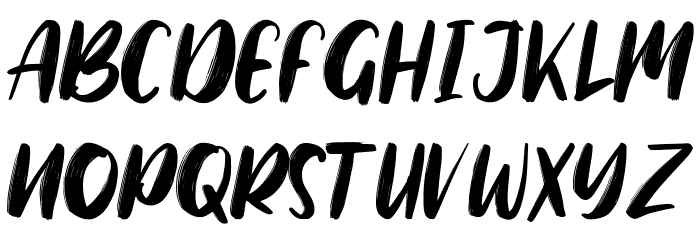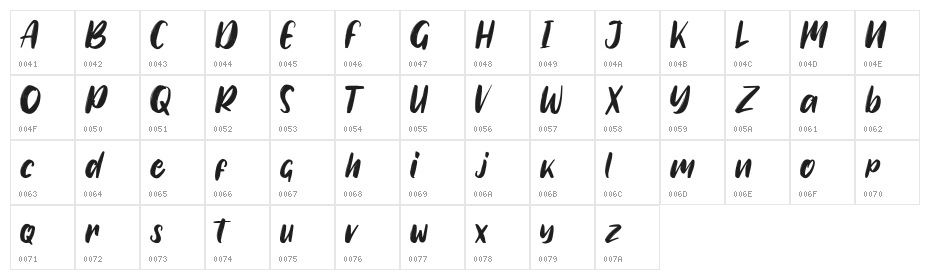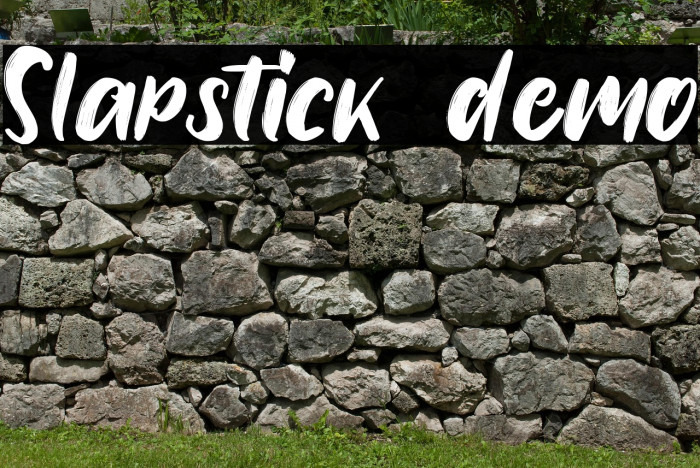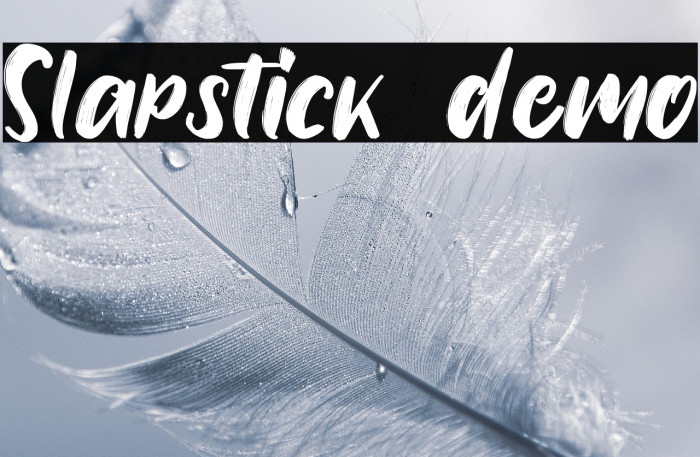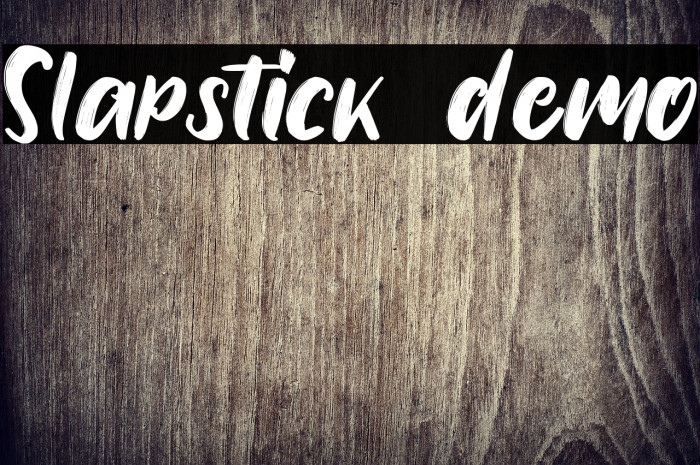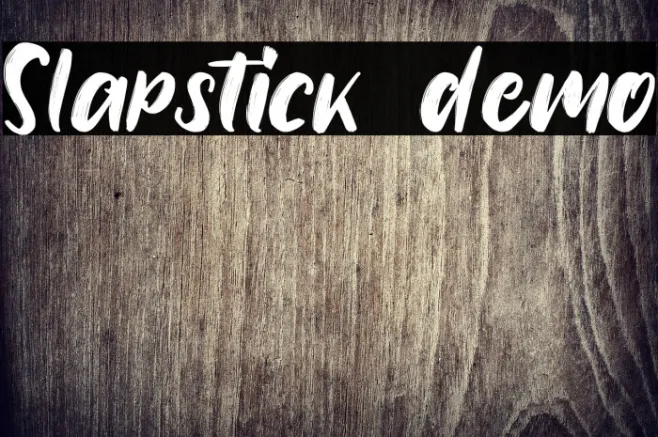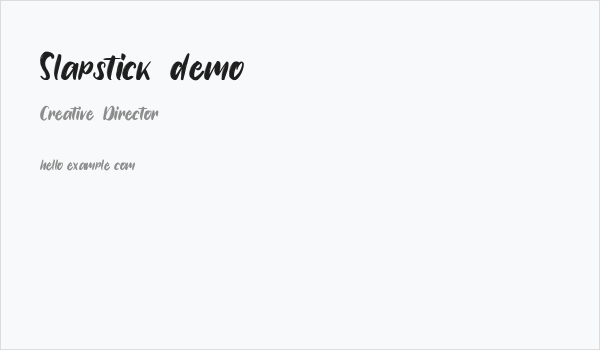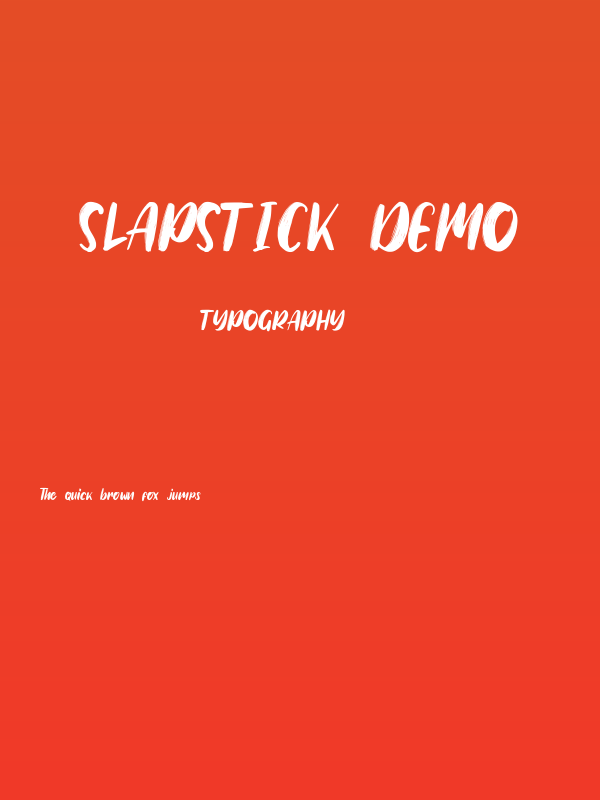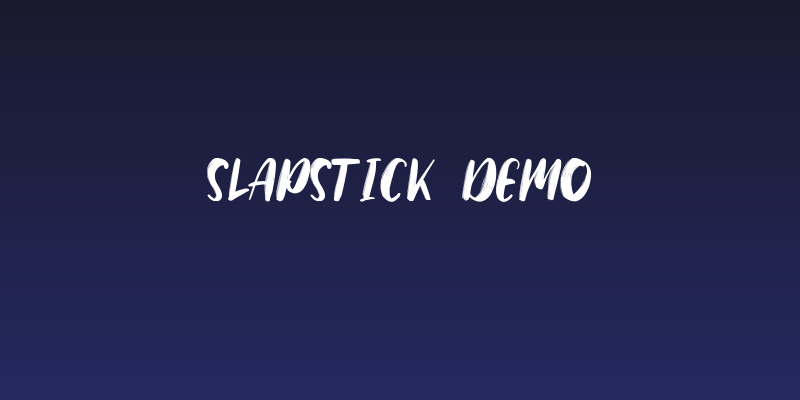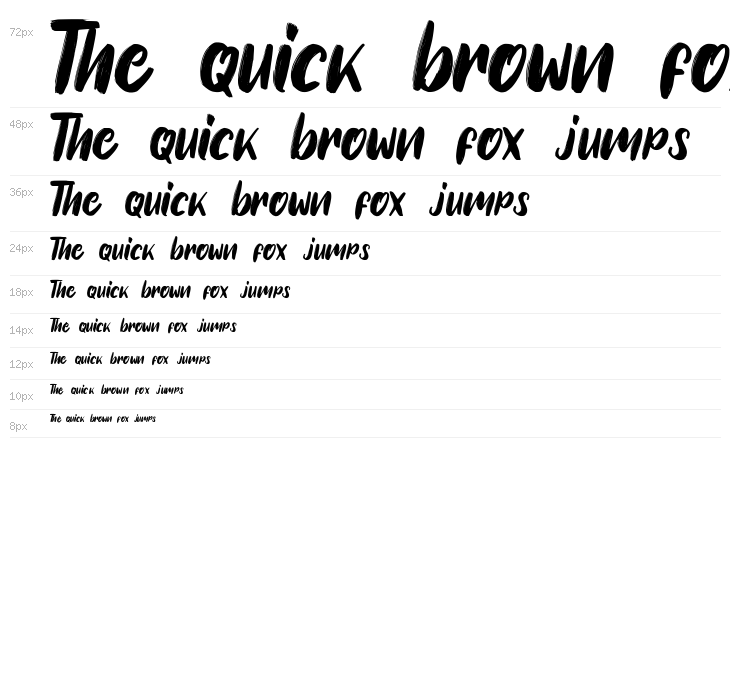
Slapstick demo Font
Slapstick demo Description
This font features a bold, energetic brush script style that exudes a sense of movement and dynamism. The strokes are thick and expressive, with a hand-painted appearance that adds a personal touch to any design. The uppercase and lowercase letters are consistent in their fluidity, creating a harmonious flow across the text. The characters are slightly slanted, enhancing the casual and informal vibe. The font is versatile, suitable for projects that require a lively and artistic feel. It stands out with its high contrast between thick and thin strokes, making it eye-catching and impactful.
| Proposed Projects | Ideal for branding, posters, invitations, and any design that seeks to convey energy and creativity. |